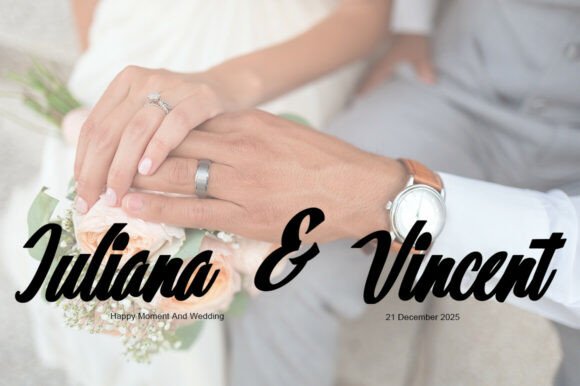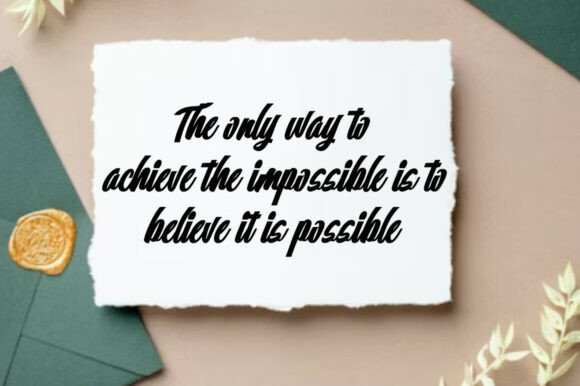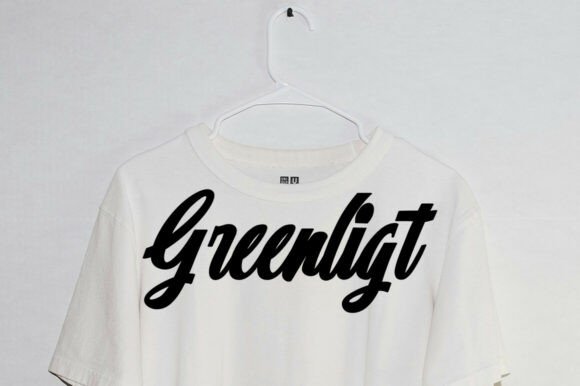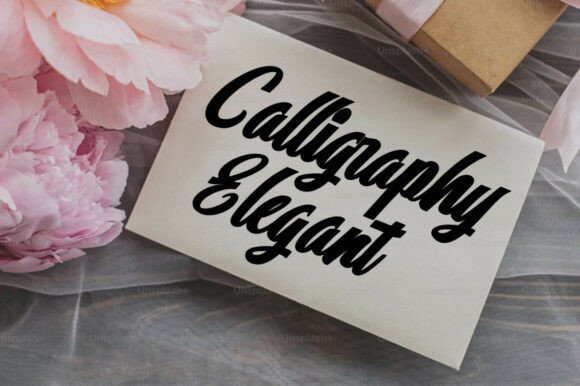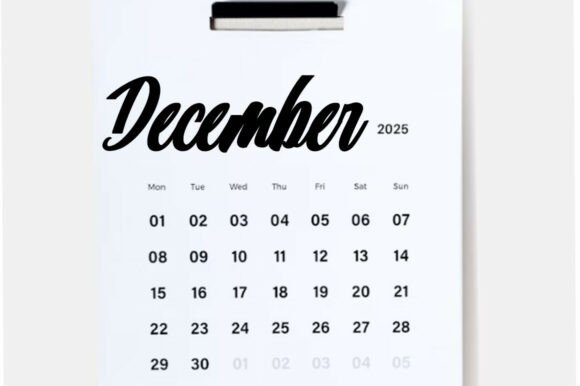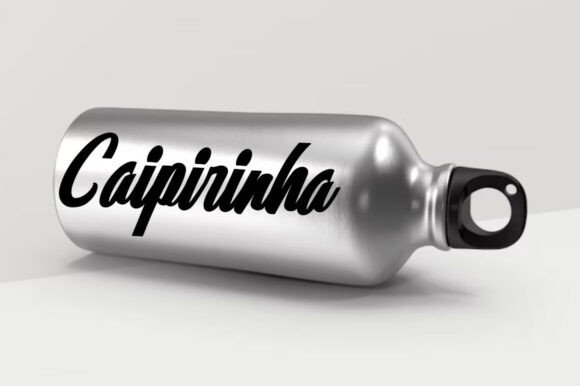
The Autography Font: A Timeless Calligraphy Classic
I’ll never forget the design project that led me to discover the Autography font. I was working on a wedding invitation for a client who wanted something elegant, sophisticated, and utterly romantic. As I scrolled through font after font, nothing seemed quite right β until I stumbled upon Autography. Its smooth, clean lines and luxurious connections immediately caught my eye, and I knew I’d found the perfect fit.
A Closer Look: What I Love About Autography
So, what makes Autography so special? Here are a few things that I absolutely love:
- β¨ Smooth, elegant lines that scream luxury and sophistication
- β Feminine and sensual without being over-the-top or clichΓ©
- π« Glamorous and perfect for high-end branding or marketing materials
- π Easy to read, even in smaller sizes β a major win for any font!
No font is perfect, and Autography has a few quirks to keep in mind:
- π€ Some letters may require manual kerning for optimal spacing
- β οΈ Not ideal for body text β Autography shines in headlines and titles
The Story Behind Autography
While the true origins of Autography are shrouded in mystery, it’s clear that its designer was inspired by the classic copperplate scripts of the past. With a modern twist and meticulous attention to detail, Autography brings a touch of luxury to any design project.
| Font Name | Autography Font |
| Author | Shape Studio |
| What makes Autography so special? | Autography’s unique blend of classic elegance and modern sophistication sets it apart from other fonts. |
| Can I use Autography for body text? | While Autography is stunning in headlines and titles, it’s not ideal for body text due to its ornate nature. |
| Is Autography suitable for formal events? | Absolutely! Autography’s classic, elegant style makes it perfect for formal events like weddings, galas, and more. |
Autography is a timeless calligraphy font that’s sure to elevate your design projects. With its smooth lines, luxurious connections, and elegant style, it’s the perfect choice for designers, crafters, and creative hobbyists alike.